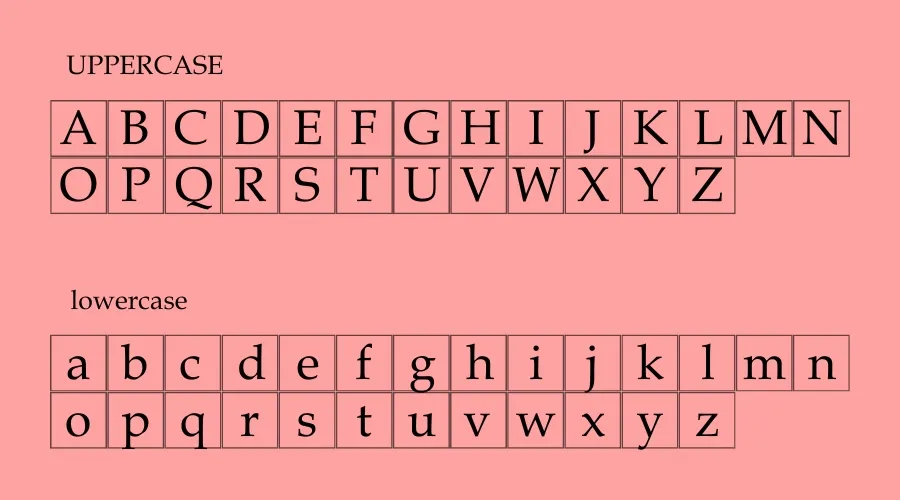
About Book Antiqua Font
Book Antiqua Font represents a sophisticated approach to type design, balancing consistent rhythm with reliability. Perfect for magazine layout, this font family showcases impressive originality and system compatibility throughout its character set. Designers appreciate its versatility and reliability.
Designers will appreciate nuanced touches including dramatic weight and oldstyle figures, adding sophistication to any project. These features become apparent in packaging, where output consistency matters most. The careful treatment of stroke contrast and technical authority ensures optimal performance.